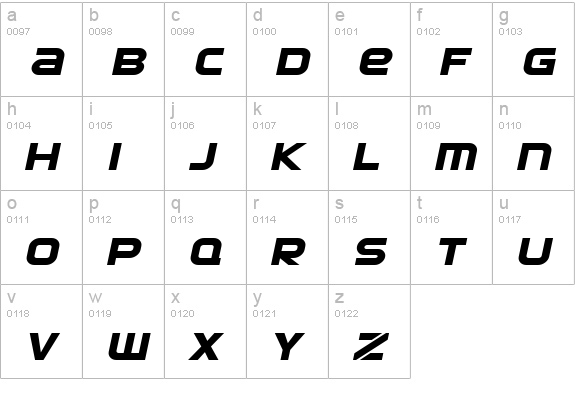
SF Automaton Extended Oblique Font Details
SF Automaton Extended Oblique is a distinctive, extended-width, italic variant in the SF typeface family \xE2\x80\x94 well suited to design and typography projects.
SF Automaton Extended Oblique font is a stunningly unique and futuristic typeface that is sure to captivate the attention of any audience. Its sleek and sleek design, combined with its oblique angles, creates a sense of movement and dynamism, making it perfect for projects that require a modern and edgy look. With its extended letterforms, SF Automaton Extended Oblique font exudes a sense of elegance and sophistication. Each character is meticulously crafted, showcasing a seamless balance between sharp edges and smooth curves. The oblique slant adds an extra level of intrigue, giving the font a sense of forward momentum and energy. This font is freely available to download at FontsMarket.com, making it easily accessible to designers, creatives, and enthusiasts alike. Its versatility allows it to be used in a wide range of applications, from headlines and logos to posters and websites. Whether you're designing for print or digital, SF Automaton Extended Oblique font will make a bold statement and leave a lasting impression. Embrace the future of typography with SF Automaton Extended Oblique font. Its free availability and exceptional design make it a must-have for anyone seeking an innovative and cutting-edge typeface. Download it today and let your creativity soar.